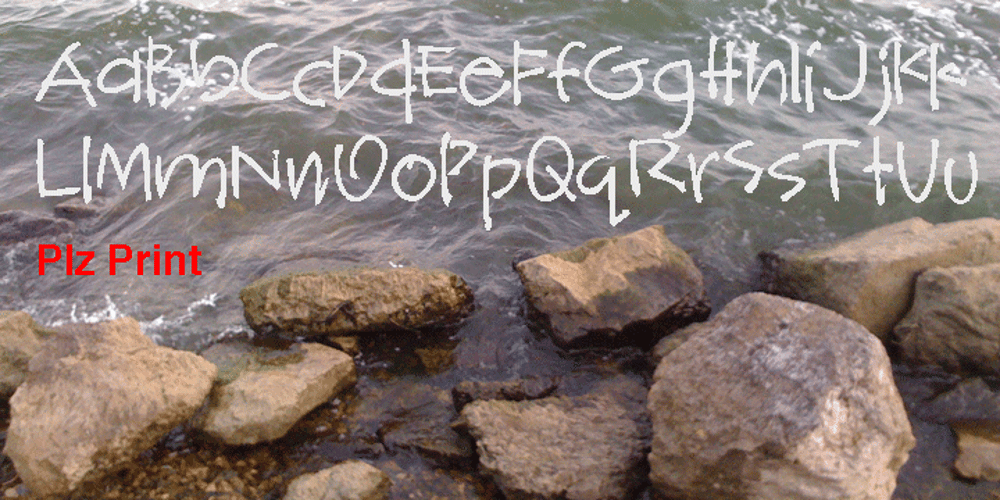
Plz Print Font Family was designed by Rae Kaiser and published by Outside the Line. Plz Print contains 1 styles and family package options. A happy, friendly hand printed font for many uses. Works as a display or body copy font. Great for that letter home to Mom or when you need a casual look. It can also be found in the book “Indie Fonts 3, a Compendium of Digital Type from Independent Foundries”.